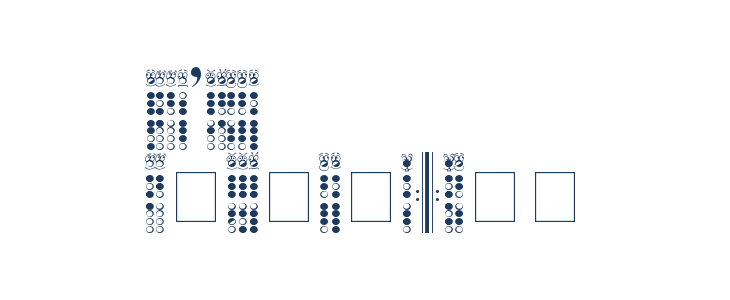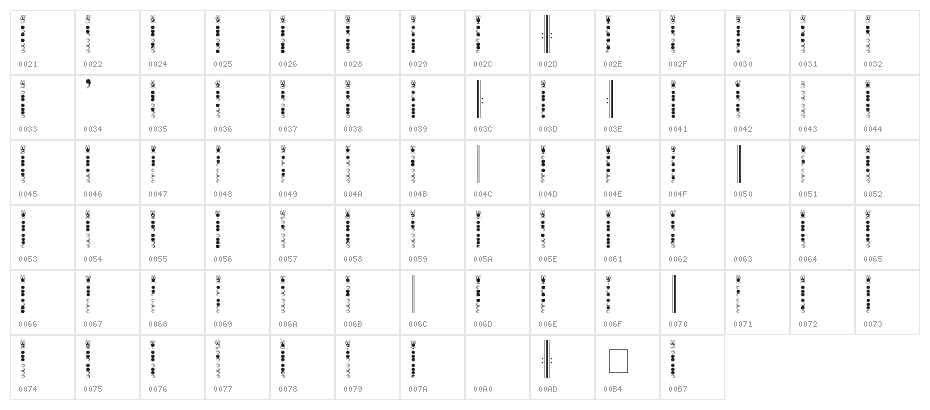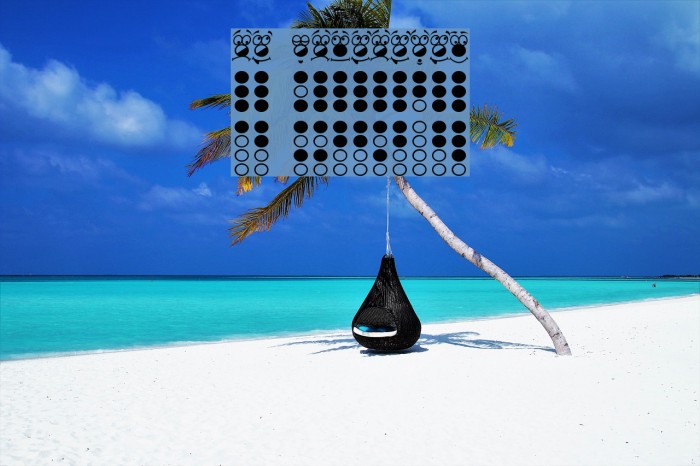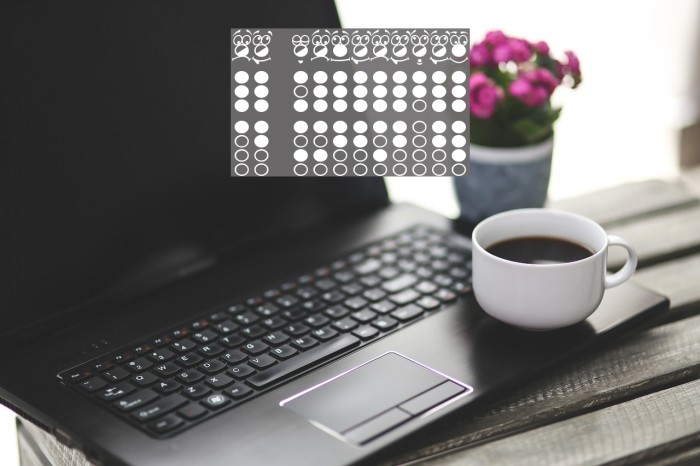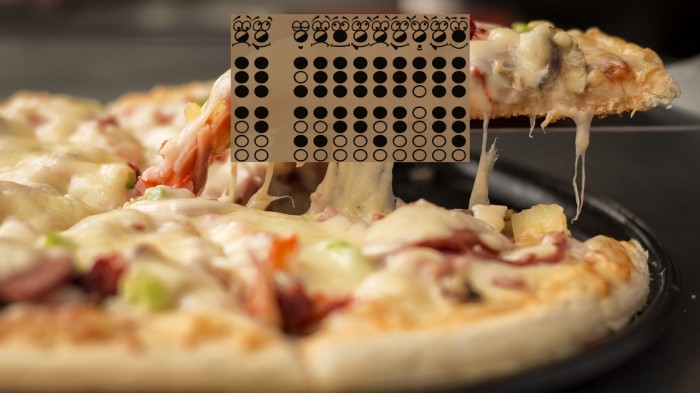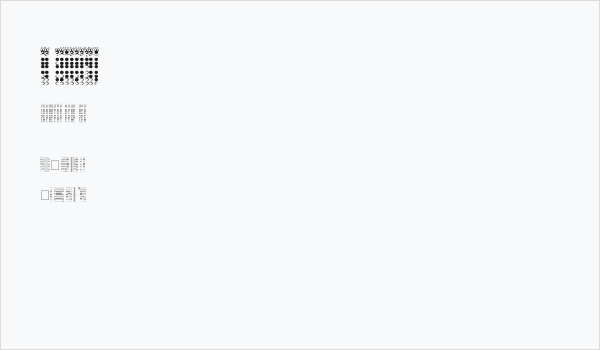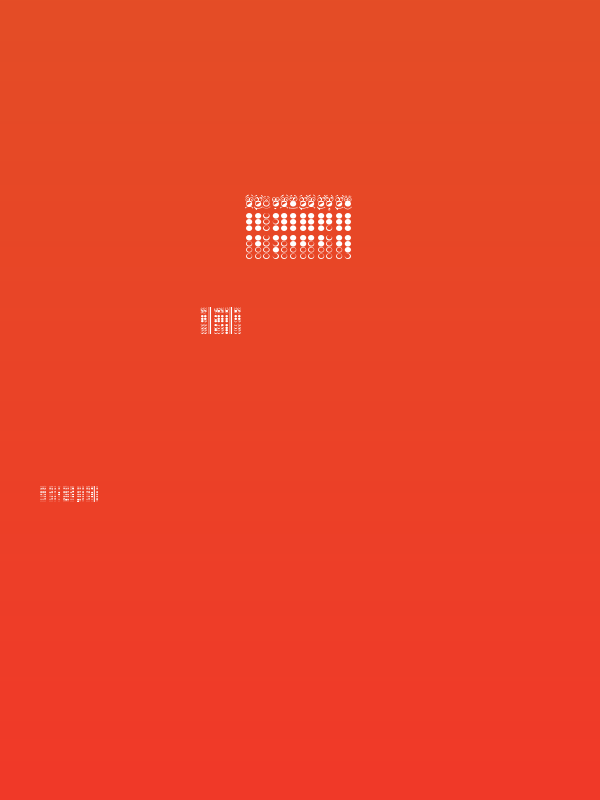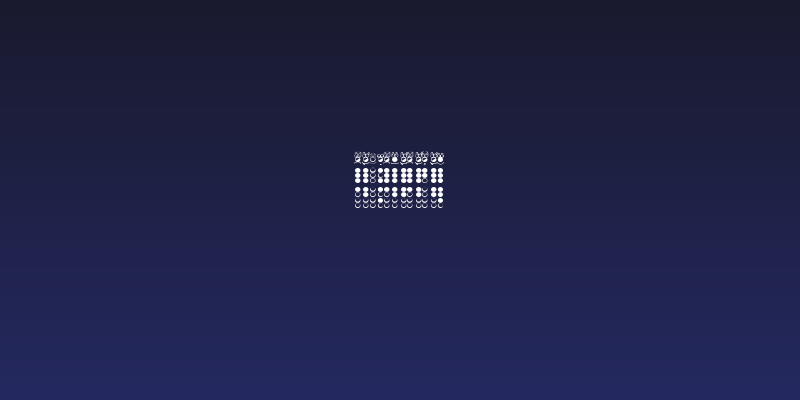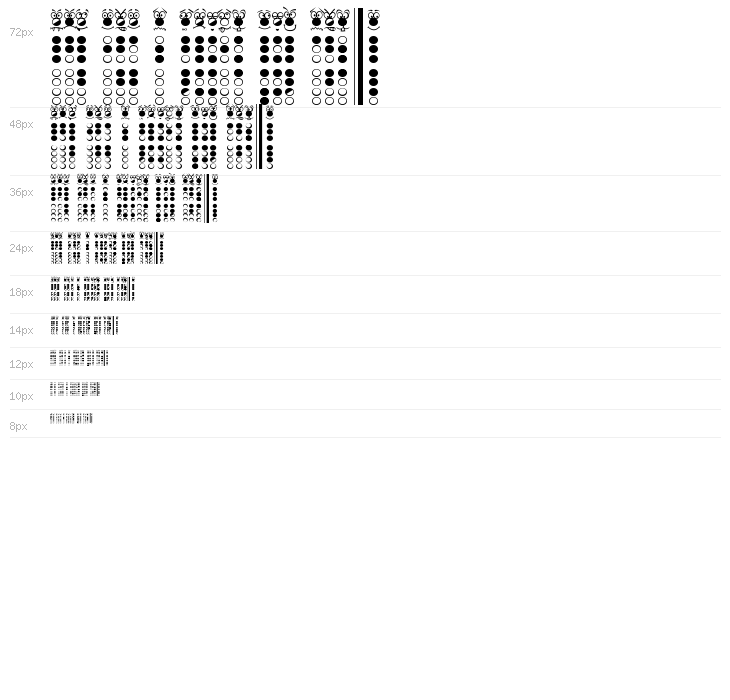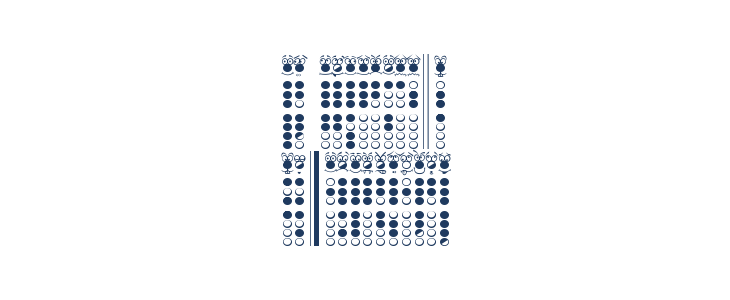
RecorderEyes Font
RecorderEyes Description
This font is a playful and whimsical design featuring characters with expressive eyes integrated into each letter and symbol. The letters are composed of bold, circular shapes that create a sense of fun and creativity. Each character is uniquely designed with a pair of eyes, giving the font a lively and animated appearance. The overall look is reminiscent of cartoon or comic styles, making it ideal for projects that require a touch of humor or lightheartedness. The font maintains a consistent weight and width throughout, ensuring readability while still capturing attention with its distinctive style.
| Overall Style | Whimsical, Playful |
| Proposed Projects | Ideal for children's books, comic strips, playful branding, or any project needing a fun and engaging typeface. |